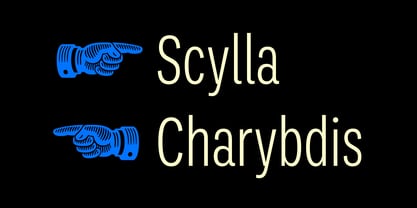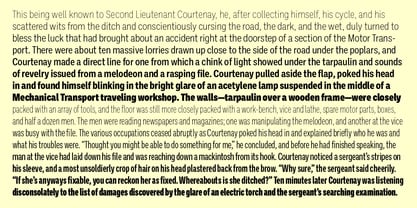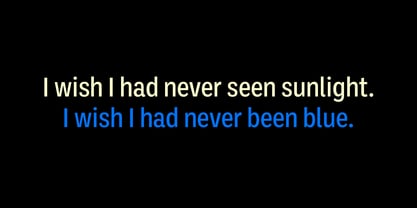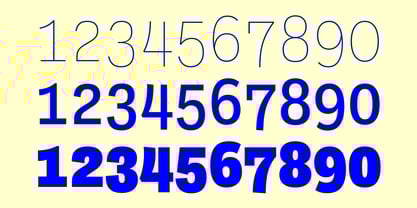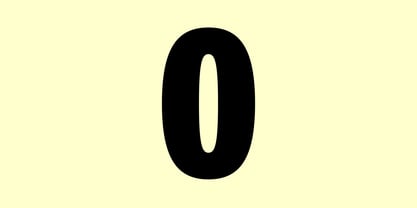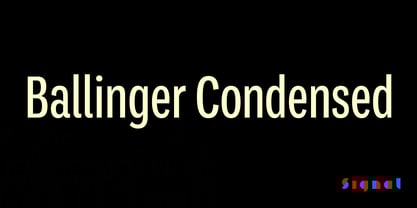
Ballinger Condensed Series
by Signal Type Foundry
The Ballinger Condensed Series Font Family was designed by Max Phillips and published by Signal Type Foundry. Ballinger Condensed Series contains 16 styles and family package options. More about this family
Our Ballinger family continues to grow with the addition of 16 new narrow styles. Their shared DNA is visible in the generous counters and x-height, forthright forms, and air of cheery efficiency. And like their wider relatives, they have their roots in 19th Century jobbing faces. While the eight Condensed styles are designed for impact, we took care to balance them for continuous reading, making them ideal for applications where space is at a premium. In contrast, the radically smooshed X-Condensed weights are ideal for movie credits, legal disclaimers, and lists of side effects. Features include semi-oldstyle figures and case-sensitive punctuation and delimiters. Winner of an ICAD Gold Bell.